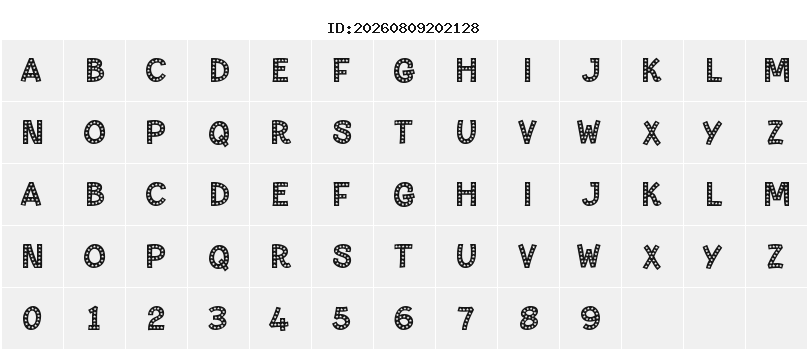
• Font Name: Paltime Glam
• Designer: Ray Larabie
About Paltime Glam.ttf
Paltime Glam.ttf is a modern, elegant sans-serif font designed for ultimate readability and visual harmony. Perfect for branding, headlines, web design, and print materials.